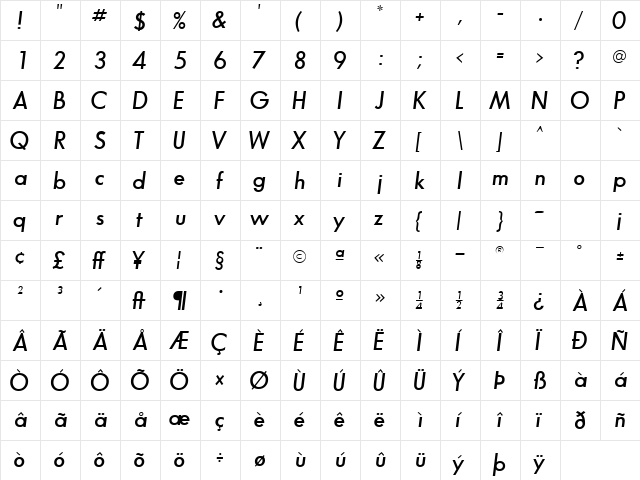
BouganSSK SemiBoldItalic Font Preview
Design Context for BouganSSK Typeface
BouganSSK takes a measured approach to typography — its balanced proportions and neutral character make it a reliable workhorse for both digital and print work. The slanted form adds forward momentum and visual energy. The heavy weight commands attention and anchors typographic hierarchies.
Pro Tip: Try BouganSSK for annotation and caption copy alongside an upright companion — the contrast in angle creates a dynamic but ordered typographic system.